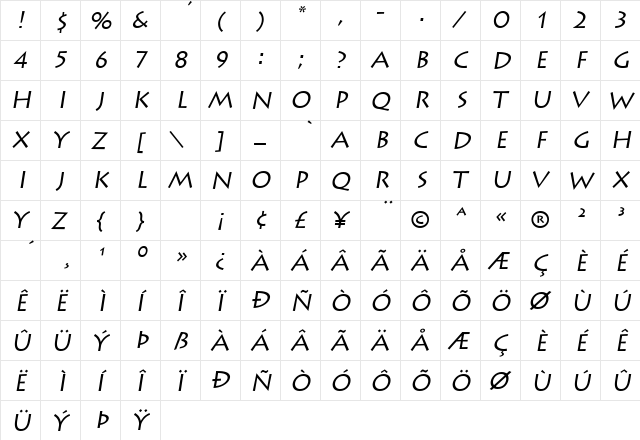
Listium Oblique
Design Context for Listium Typeface
Listium takes a measured approach to typography — its balanced proportions and neutral character make it a reliable workhorse for both digital and print work. Its italic angle brings a sense of urgency and motion to the letterforms.
Pro Tip: Use Listium for emphasis, pull quotes, and subheadings where its slanted energy can add rhythm to the layout.